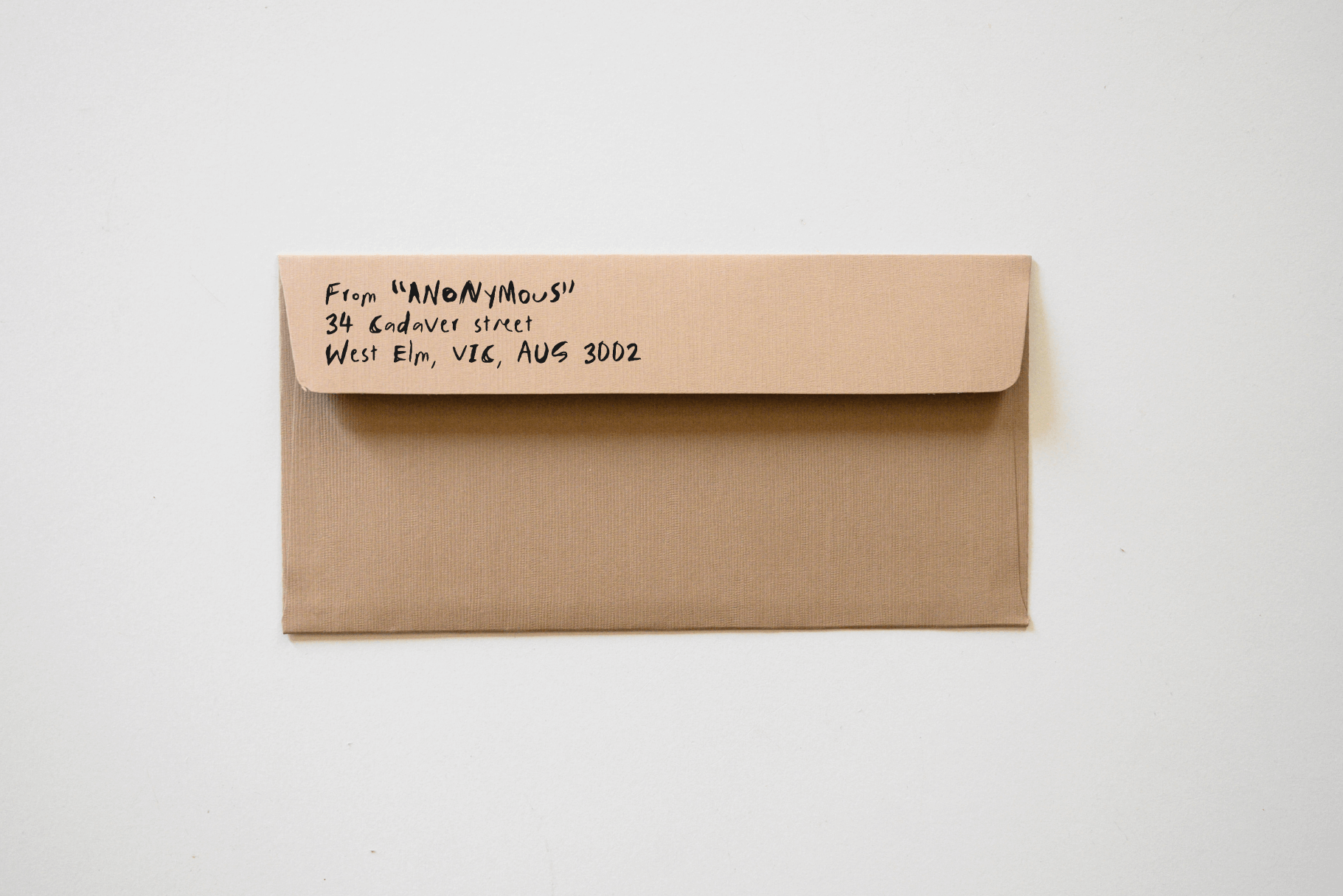
Manic
Manic is truly a messy handwriting font. It's scribbly, it's scratchy and above all, it's unique. It has a massive amount of glyphs and ligatures (650+) and each alternate's characters can be mixed and matched to create that extra messy look. Manic looks like real handwriting, like it was scrawled onto paper with a lead pencil. Manic comes with 4 unique, but equally messy, font styles and one sketches font. This comprehensive font is packed with options for you to mix and match. This erratic handwriting font has multi-lingual support for a number of languages. Use the type tester below to try it out. BONUS ✨ Manic comes with a matching set of scratchy sketches (lines, circles, crosses and scribbles) in both PNG and SVG file formats.
An erratic some-caps some-lowercase scrawl... Manic includes a total of four variations for each A-Z letter and number, with each individual font style producing a slightly different (but always manic) overall look.
Manic: A messy and realistic, erratic handwritten scrawl